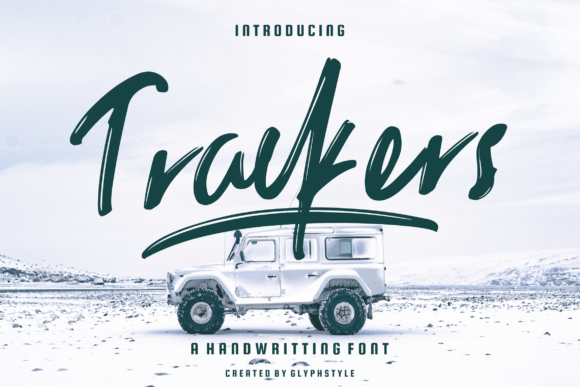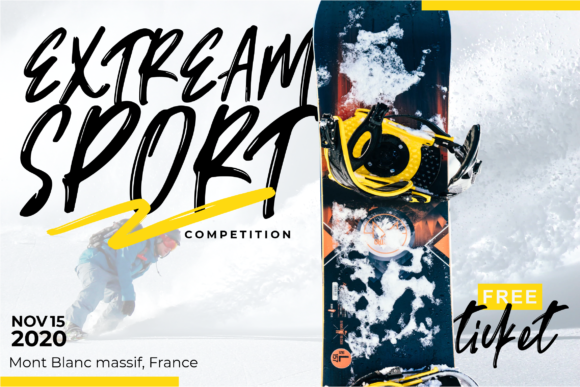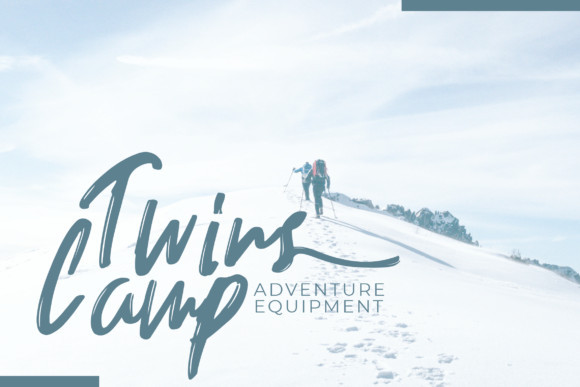
Trackers Font
Trackers is a natural brush handwritten font. It has a relaxed style and asymmetrical characters and as a result, it will make each of your designs stand out.